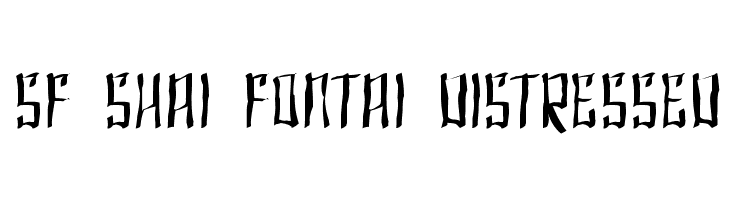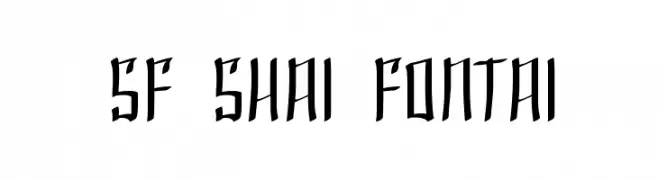
A bold, angular font with high contrast and a modern Gothic style.
A bold, gothic-inspired font with sharp, angular edges and a dramatic style.
A bold, oblique font with dynamic, angled strokes for a powerful impact.
A distressed, edgy font with a hand-drawn, rugged appearance.
A distressed, oblique font with sharp, angular lines and a rugged texture.
A bold, gothic-inspired font with sharp, angular edges.
A bold, oblique font with sharp, angular edges and a dynamic style.
A dynamic, angular font with sharp, slanted strokes and a modern feel.